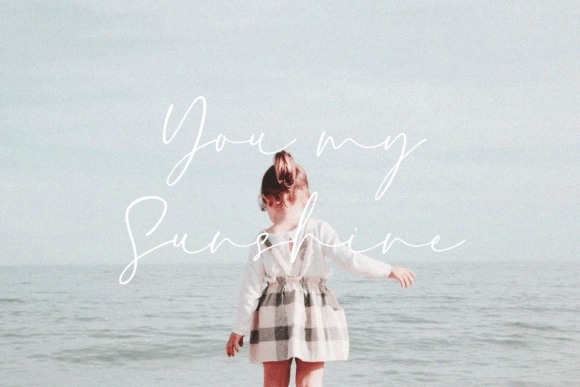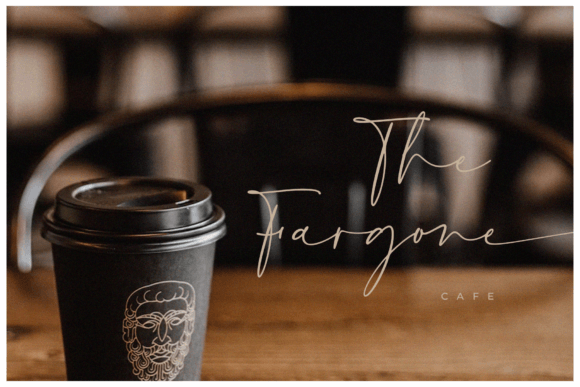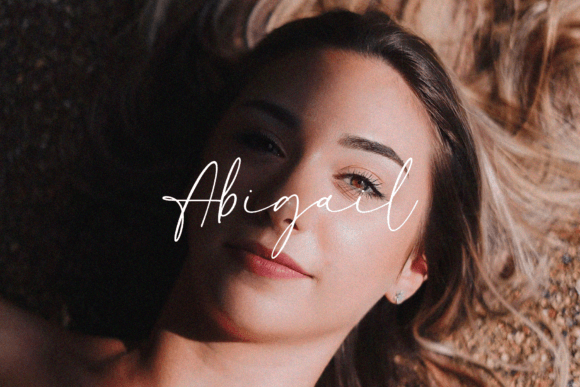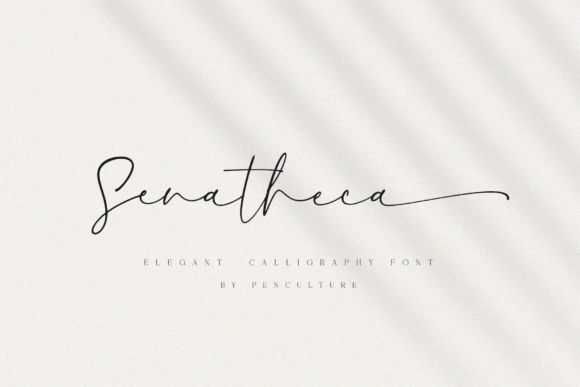
Introduction to Senatheca Font
Proudly present β€œSenatheca – Elegant Calligraphy Font” Senatheca is an elegant calligraphy font with smooth curves that is perfect for wedding invitations, Branding, posters, and many more.
This font comes with uppercase and lowercase letters, numbers and punctuation, ligature also beautiful swashes .
Key Features of Senatheca Font
Why Choose Senatheca Font?
Senatheca Font offers exceptional quality and versatility, making it a valuable addition to your design toolkit. Whether you’re creating for personal projects or commercial use, Senatheca Font delivers professional results.